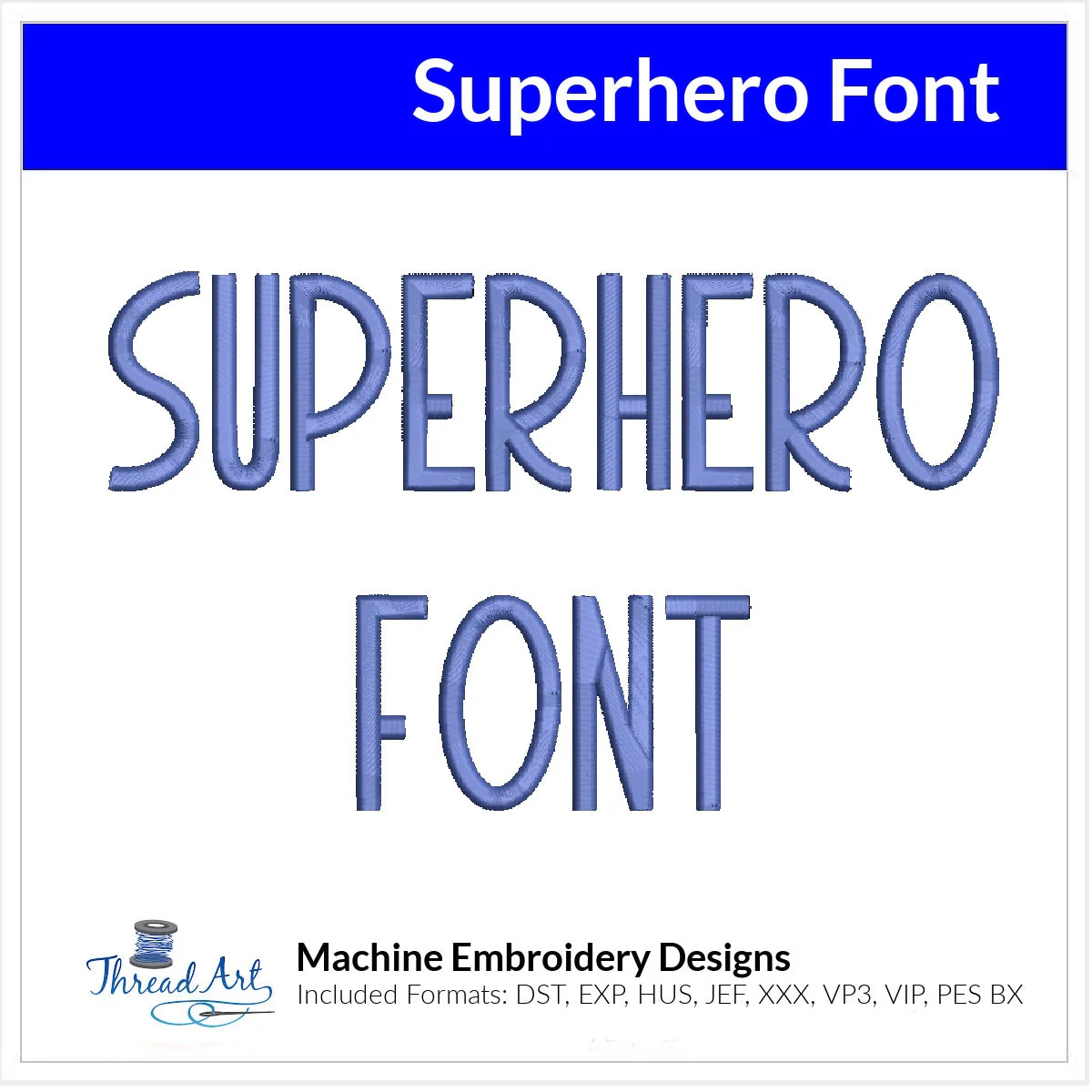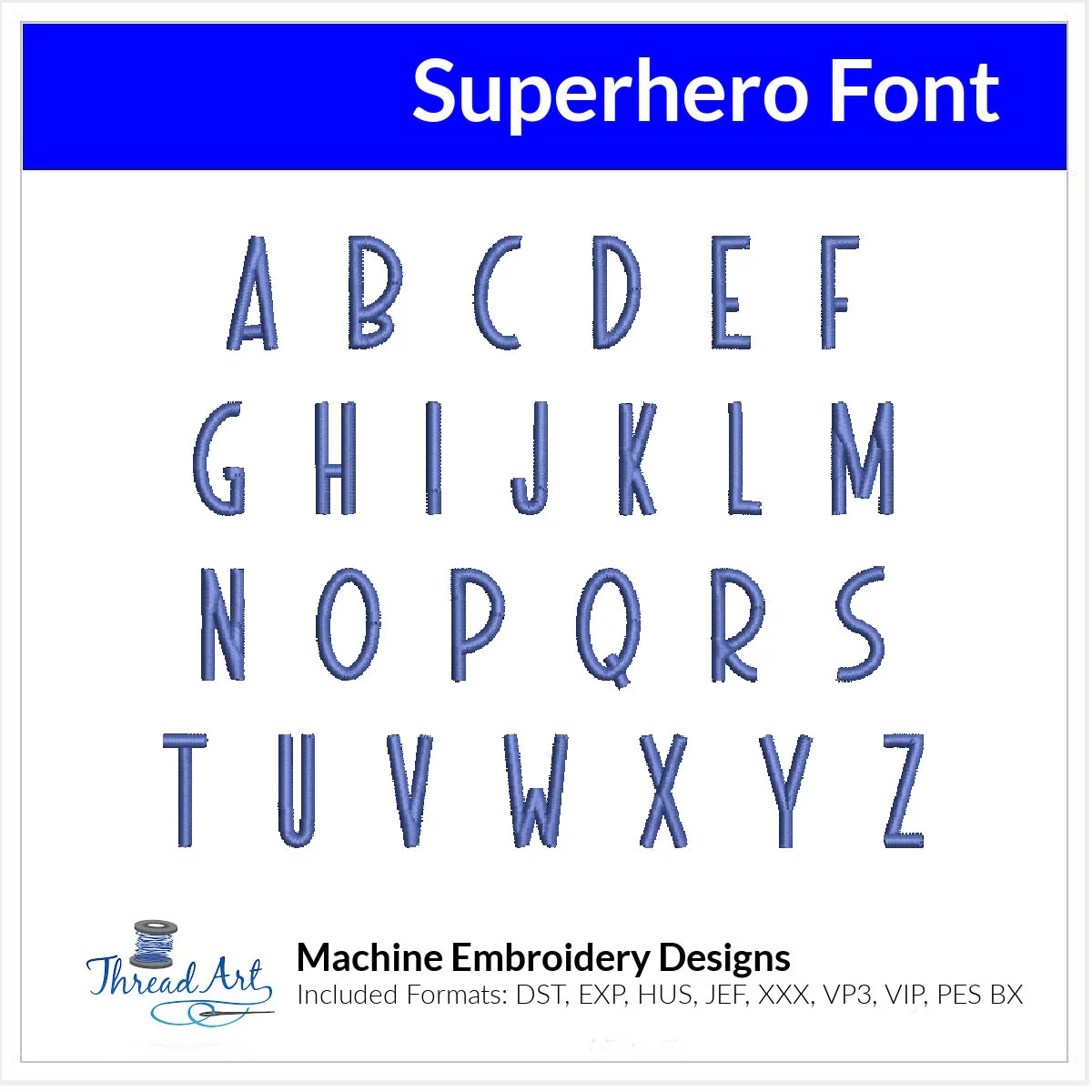
Superhero Font Machine Embroidery Design Set - Fun Block Alphabet Letters BX Font - Download 9 Formats and 4 Sizes -1 to 2.5"
Superhero Font Design -- Machine embroidery font design set with different design sizes included. Letters are 2.5", 2", 1.5" and 1" tall and includes fun block uppercase in popular formats: DST, EXP, HUS, JEF, PES, XXX, VIP, VP3 and BX. Convenient for those with multiple machines. Designs will be available for instant download. Choose physical USB stick to have designs sent via mail on a usb stick.1", 1.5" and 2" are satin stitch and 2.5" are fill stitch.